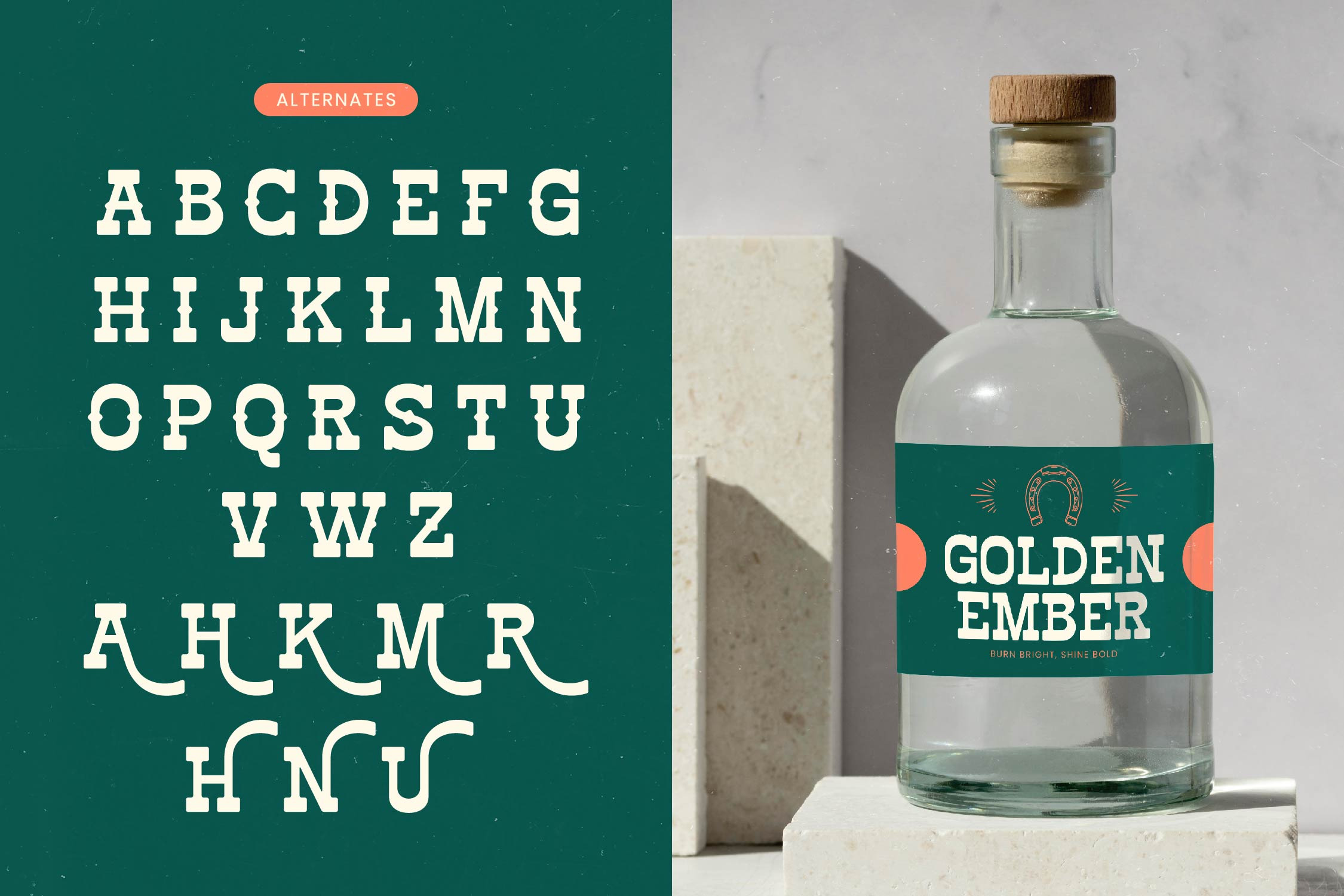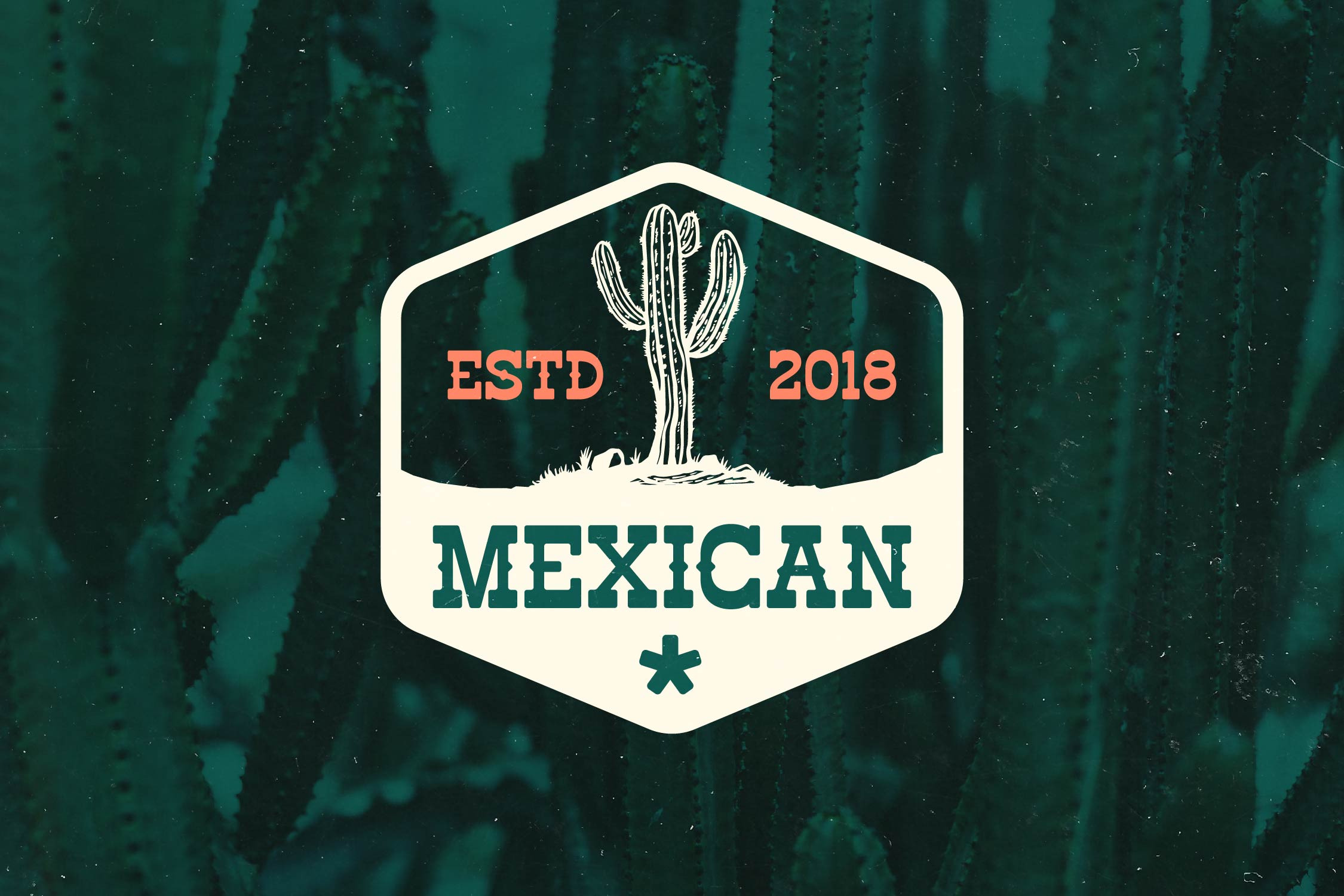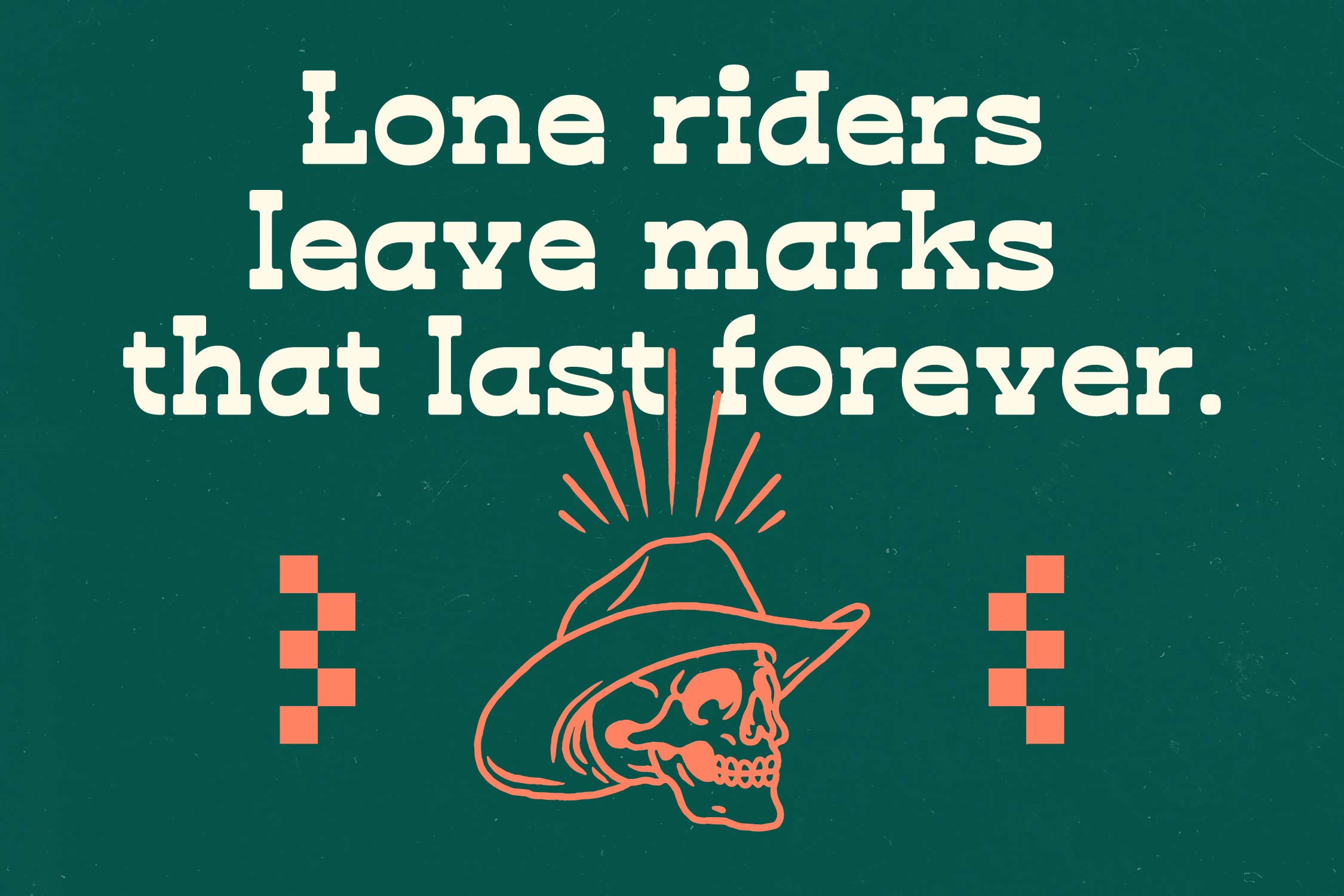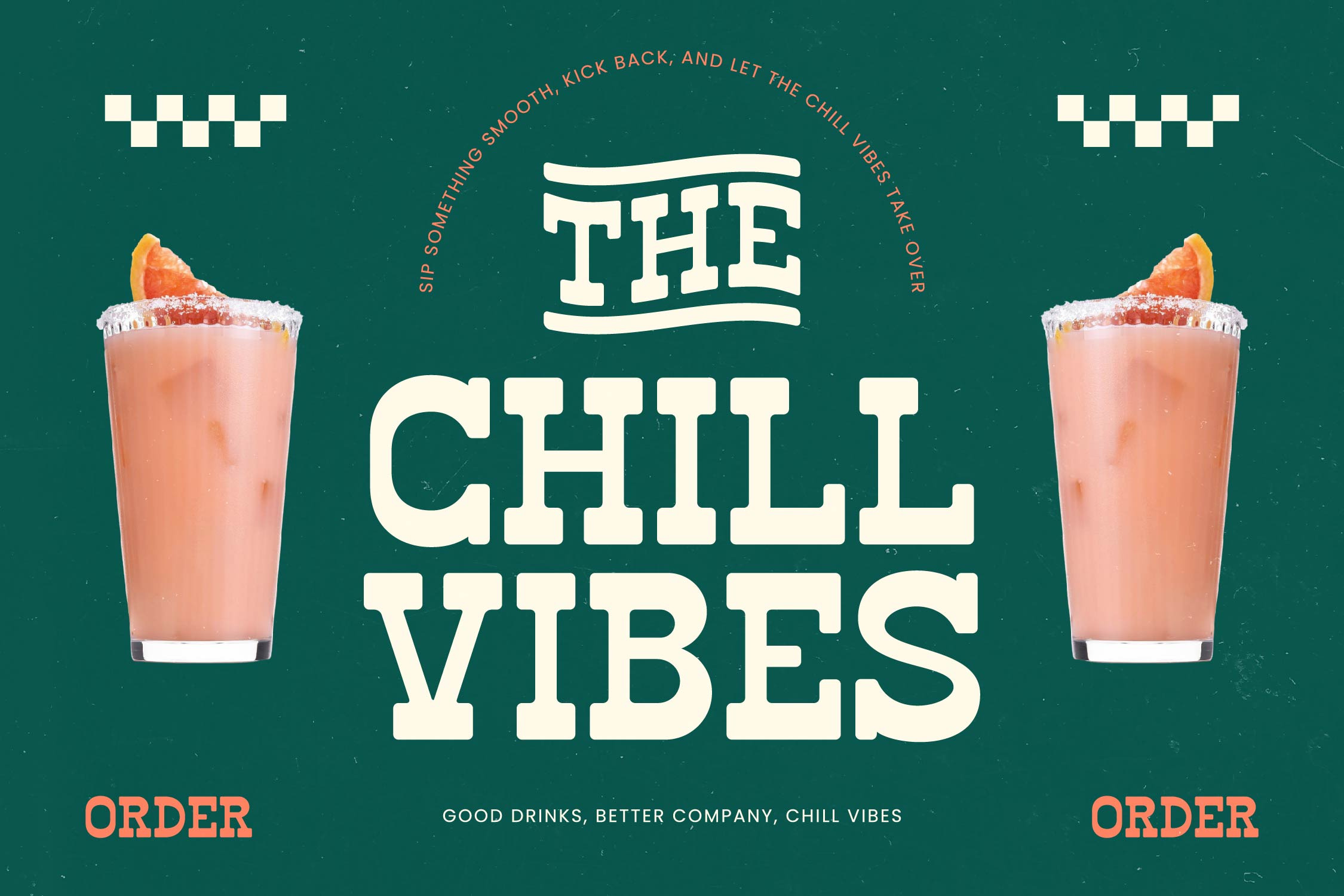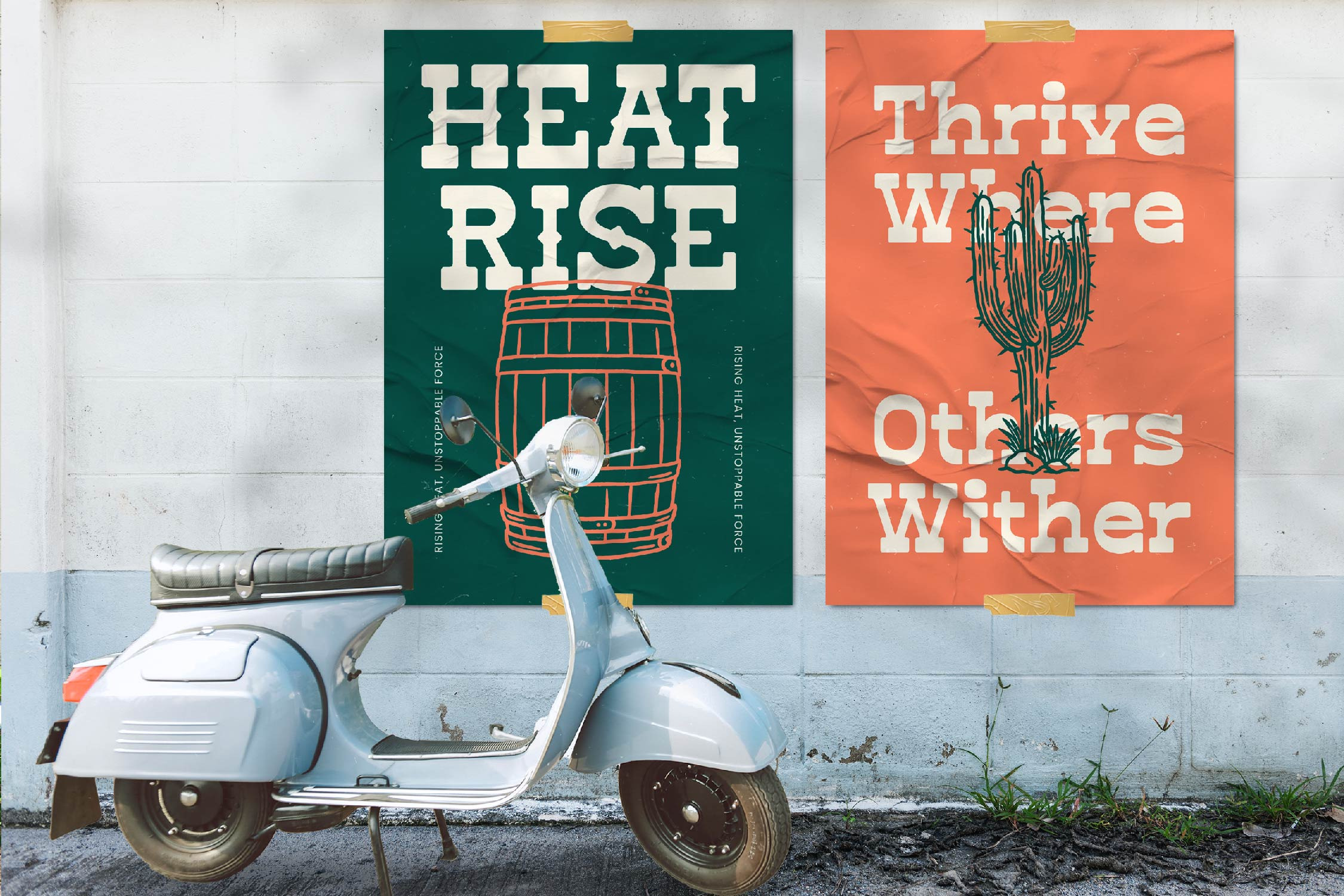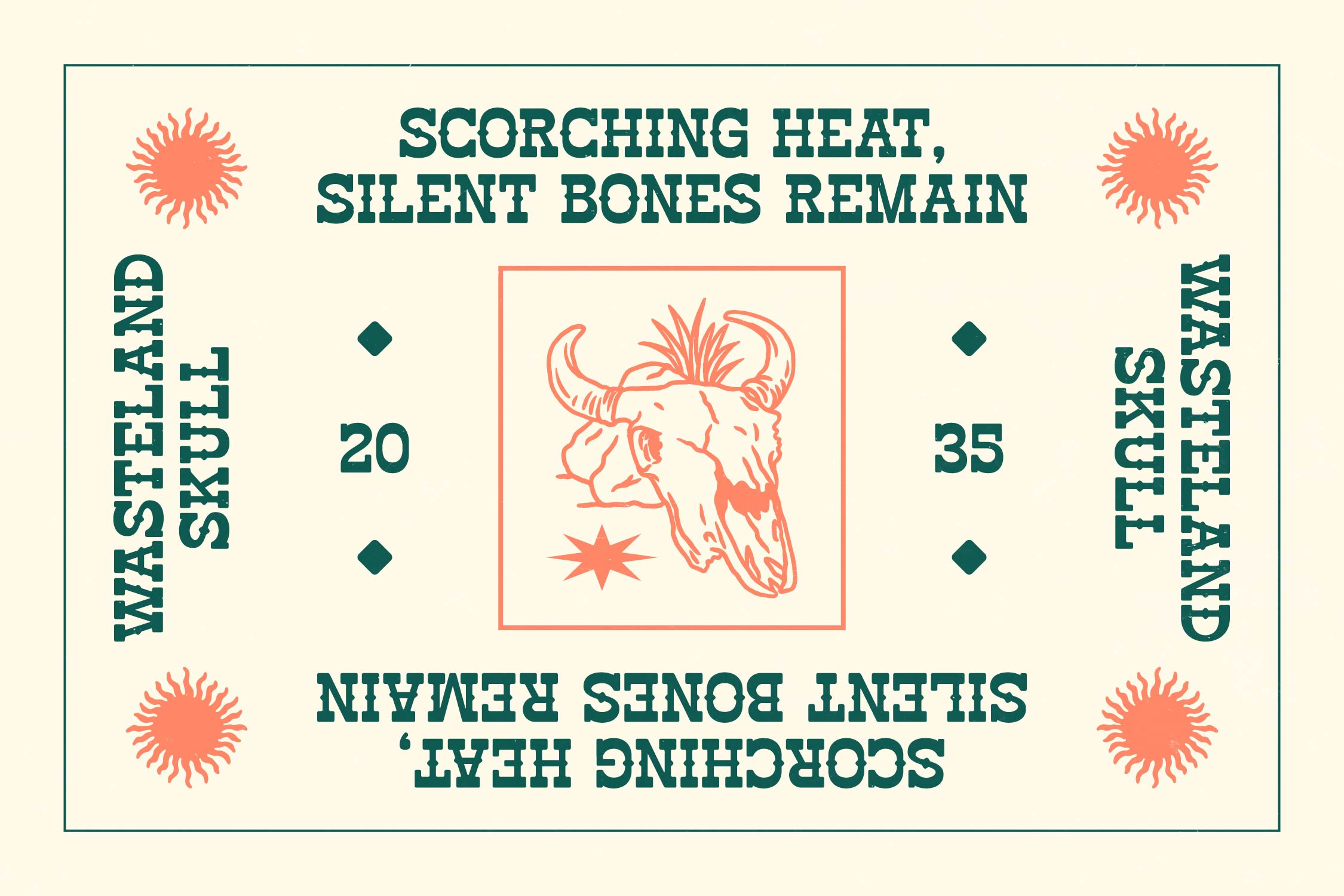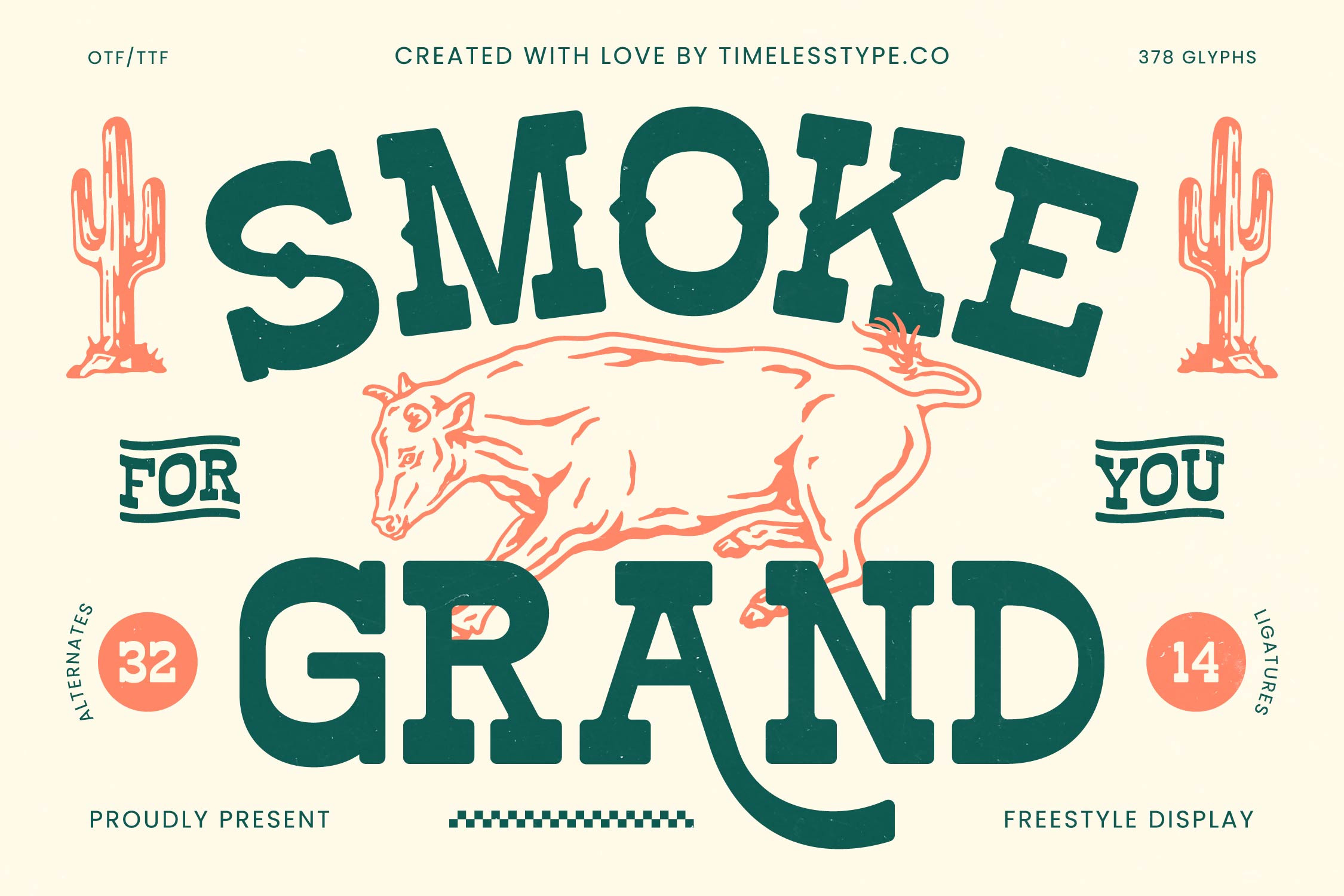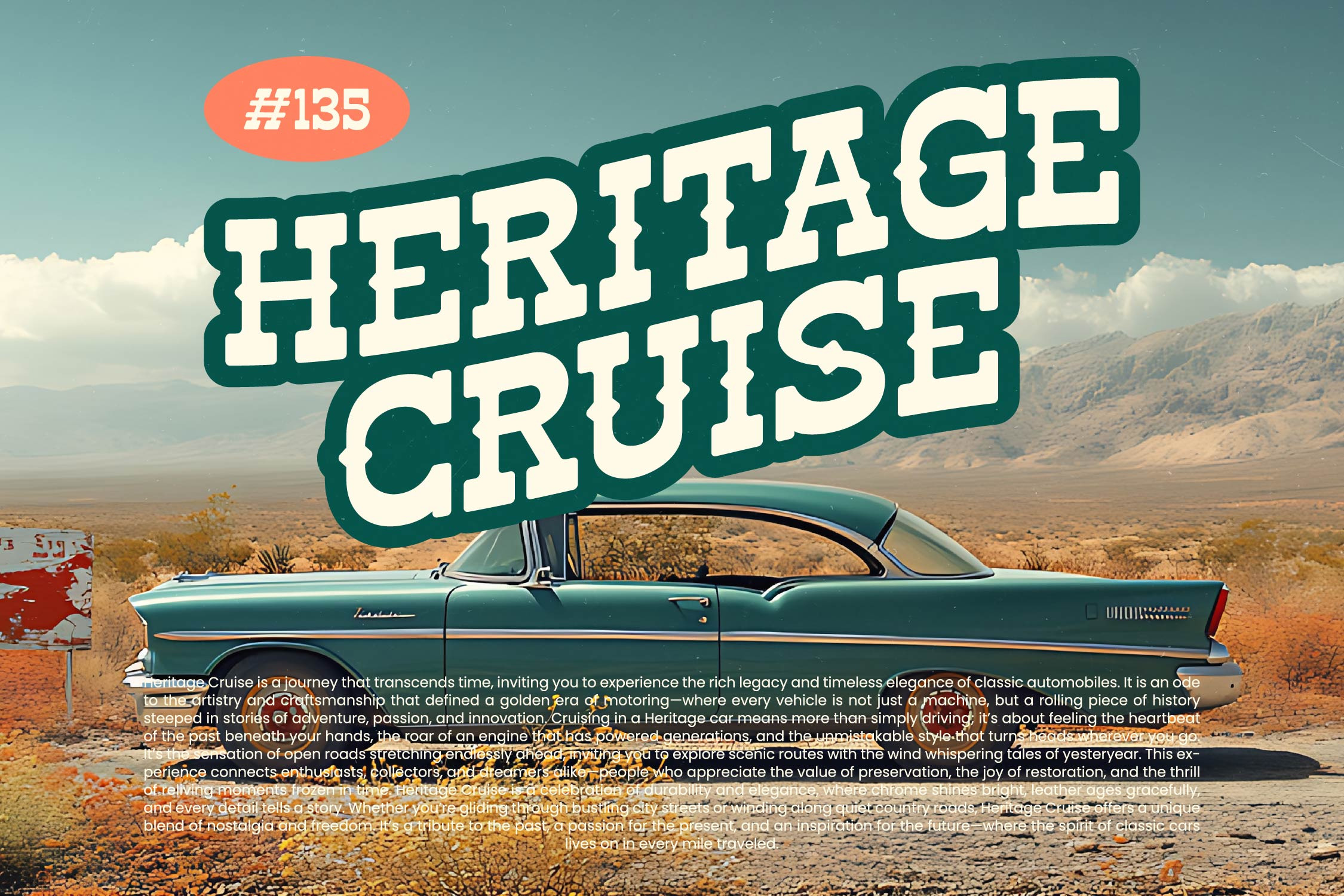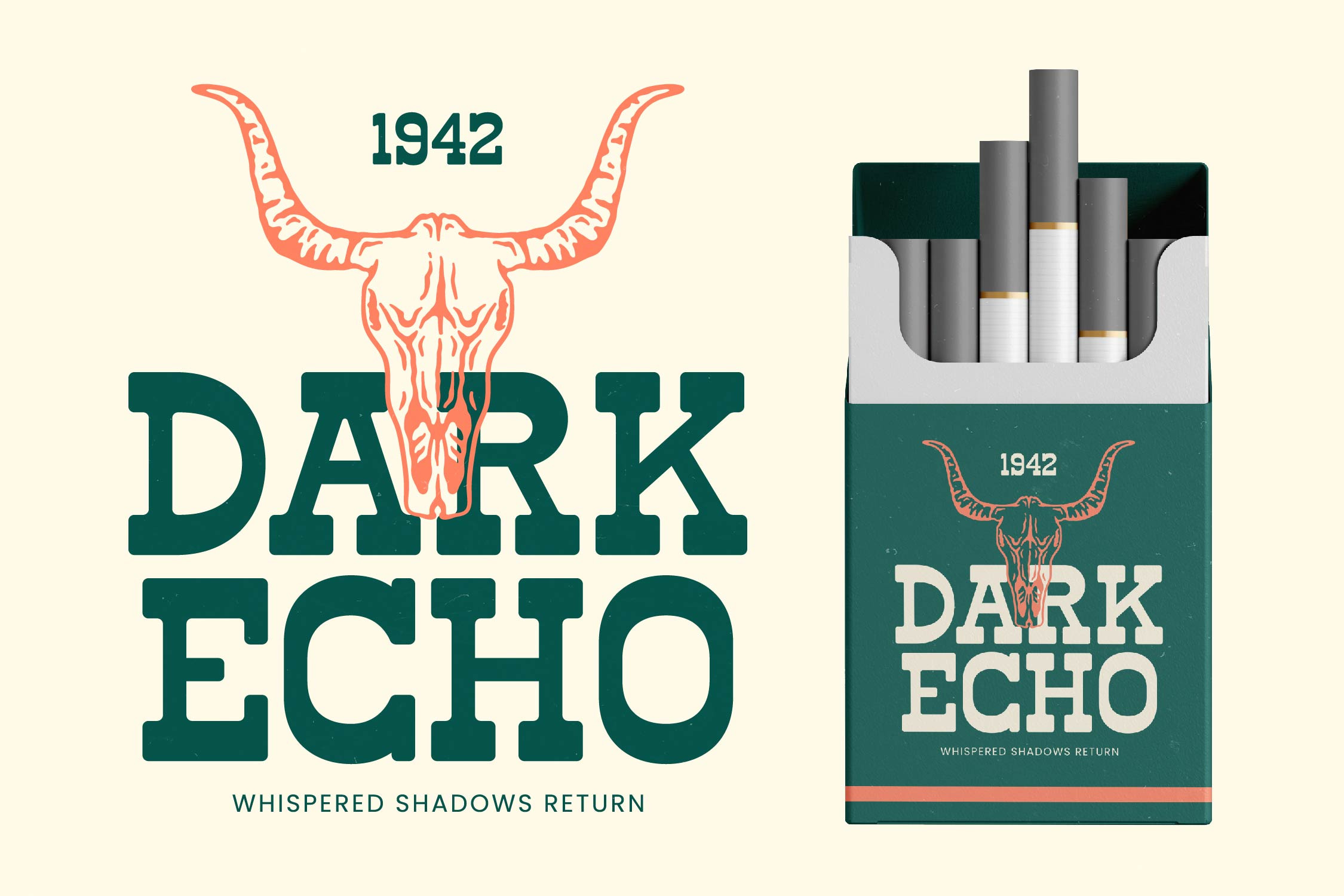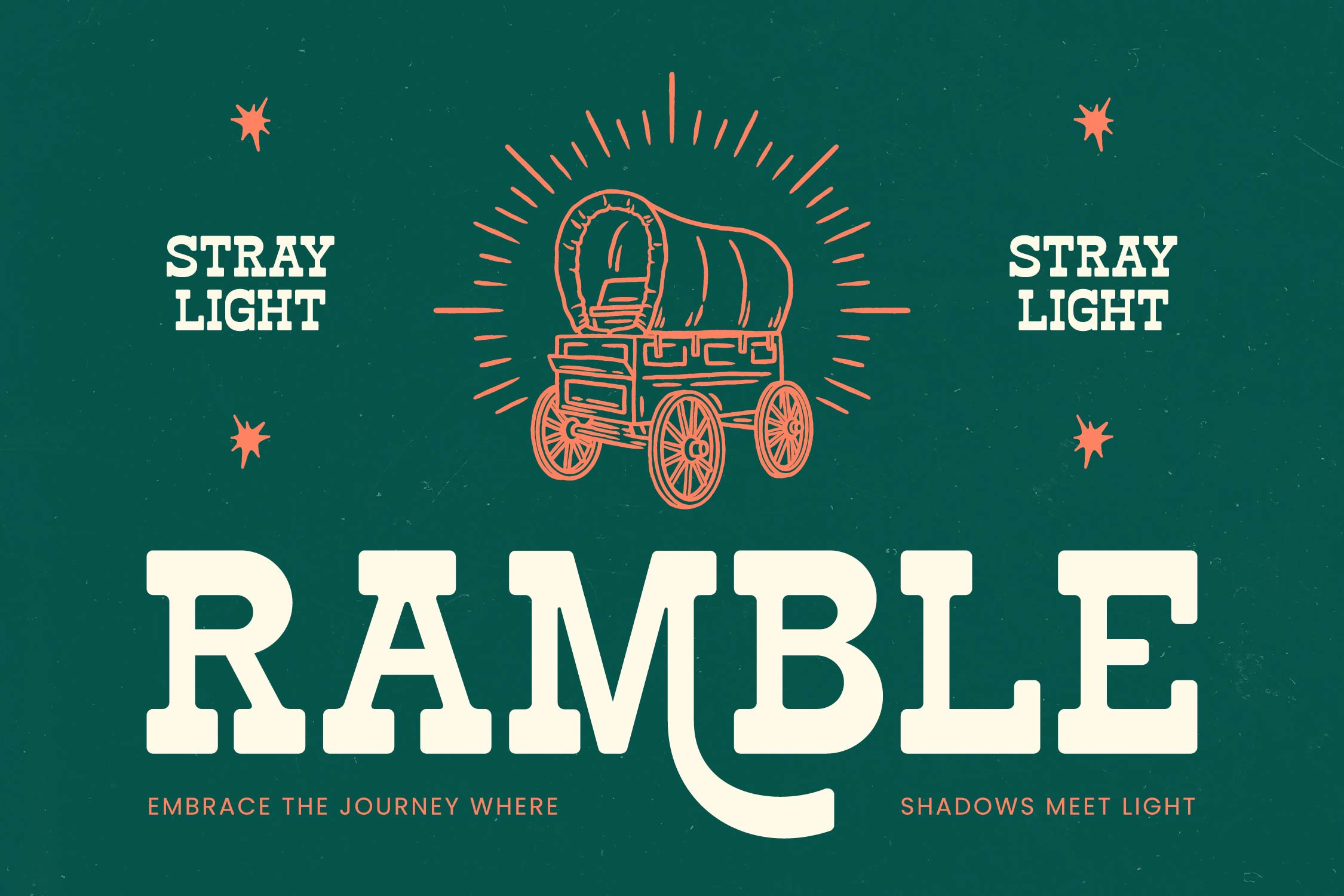
Smoke Grand - Freestyle Display Font , from Timelesstype .Co , Suitable for any projects such as: logos, branding projects, homeware designs, product packaging, mugs, quotes, posters, shopping bags, t-shirts, book covers, name card, invitation cards, greeting cards, label, photography, watermark, special events, and all your other luxury and beautiful projects that need a Luxury Serif taste. - Product Content : - TTF - OTF - WOFF Features : - Ligature 14 Alternate 32 - Uppercase and Lowercase - Numerals - Punctuations (OpenType Standard) - Accents (Multilingual Characters) - Ligatures and Alternative Style Stylistic Set - Works on PC and Mac - Simple installations Thank You. | Smoke Grand Freestyle Display Font | timelesstypeco